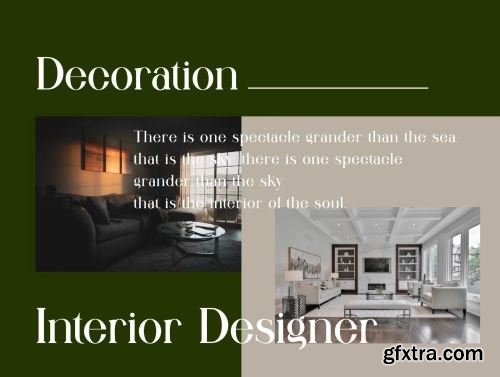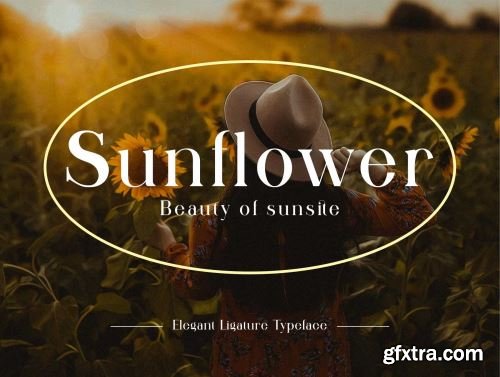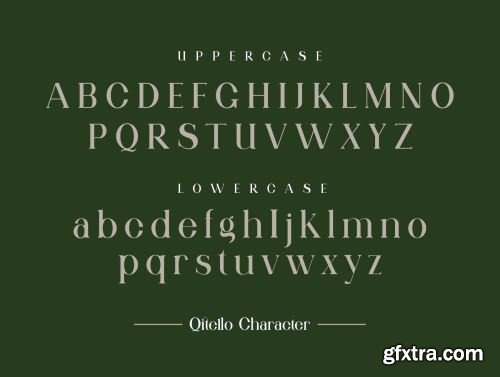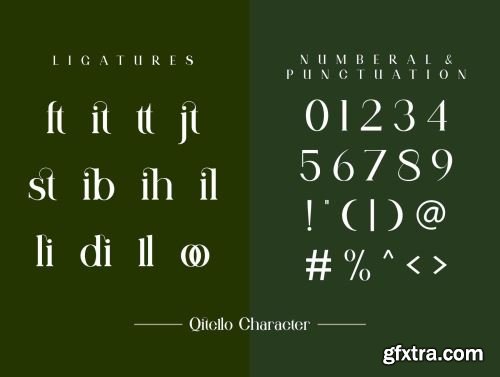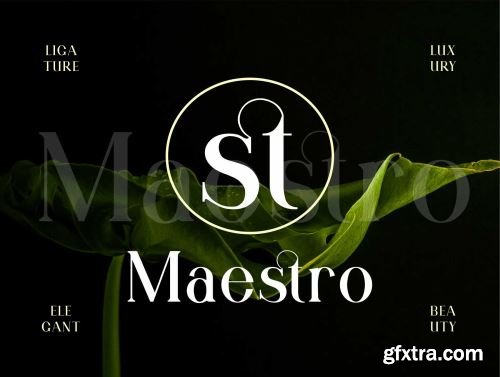
Qitello Ligature Serif Typeface Ui8.net
Qitello Stylish Ligature Typeface inspired by the famous minimalist logo perfect for the purposes of designing templates, brochures, videos, advertising branding, logos and more
+ Ligatures